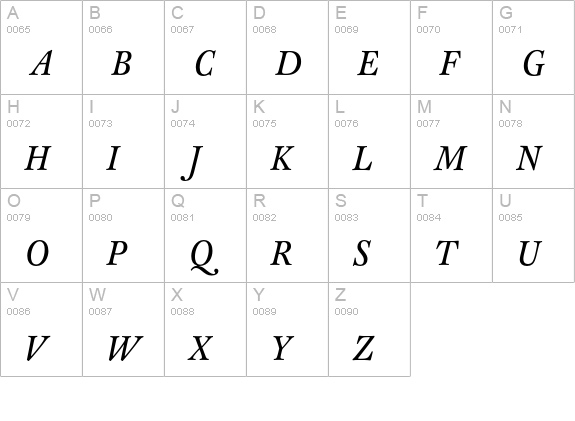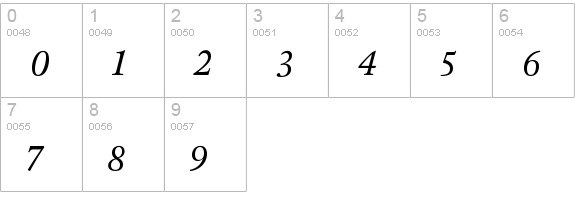
CliffordEighteen-ItalicAltLF is a stylish and elegant font that exudes sophistication and charm. Its slanted italic design adds a touch of modernity to any design project, making it perfect for branding, invitations, and other creative endeavors. The unique alternate characters give this font a distinctive look that sets it apart from other typefaces. What makes CliffordEighteen-ItalicAltLF even more appealing is that it is available for free download at FontsMarket.com. This means that you can access this beautiful font without any cost, making it a valuable addition to your font collection. Don't miss out on the opportunity to enhance your projects with this exquisite typeface – download CliffordEighteen-ItalicAltLF today!